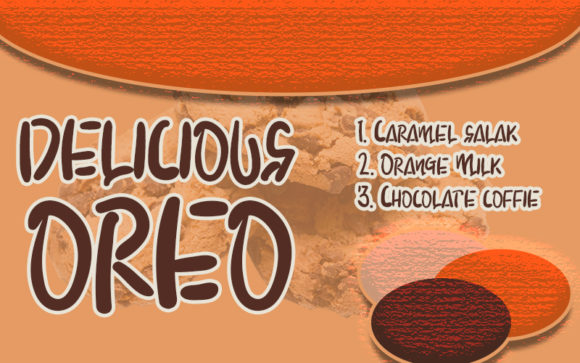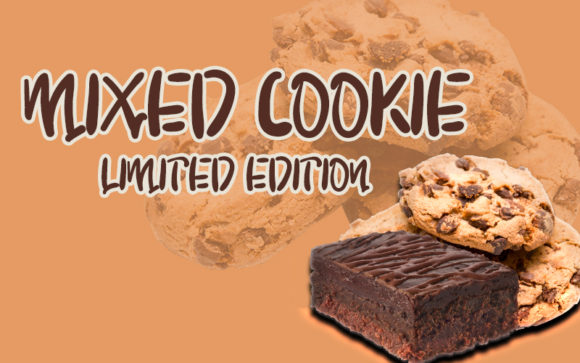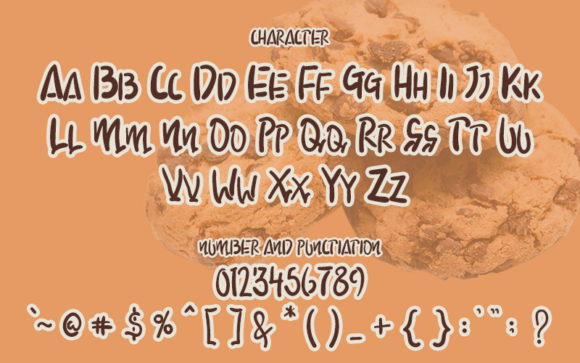
Introduction to Chocolate Cookie Font
Chocolate Cookie is a cute and casual handwritten font with an incredibly friendly feel.
Use this gorgeous and unique font to bring any DIY project to life .